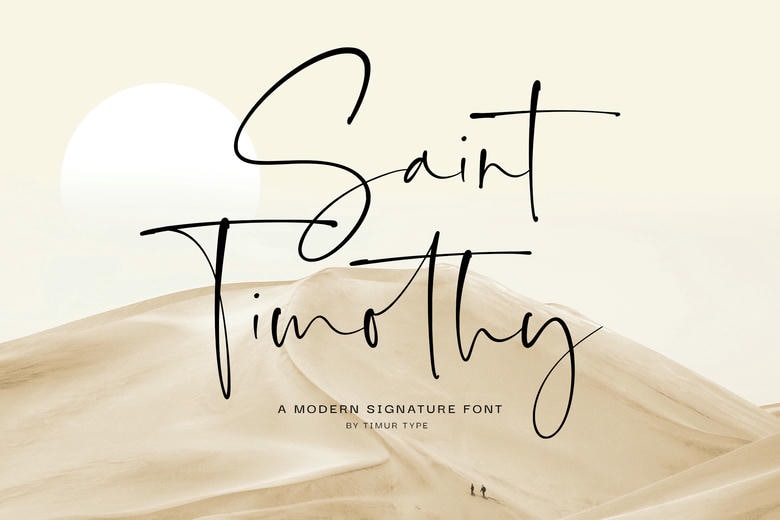
Saint Timothy Font
Saint Timothy has a charming and elegant style. It looks great on wedding invitations, thank you cards, quotes, greeting cards, logos, business cards, or any design that needs a handwritten feel.
Saint Timothy Signature Script Font